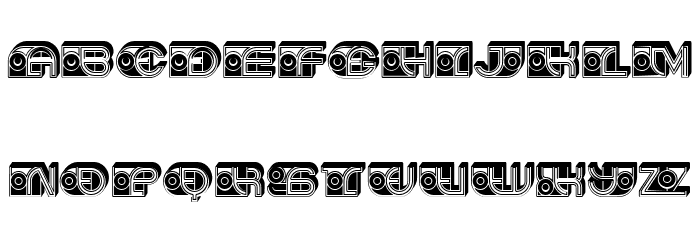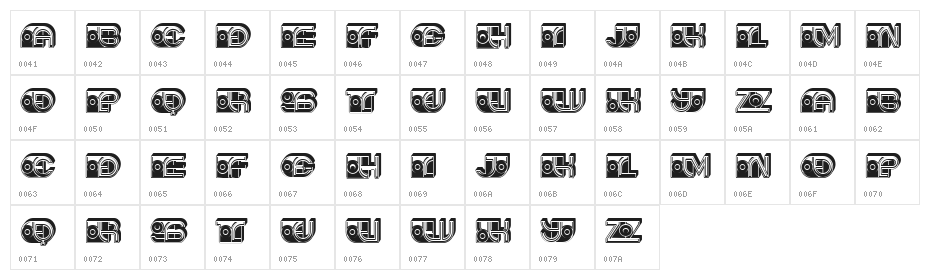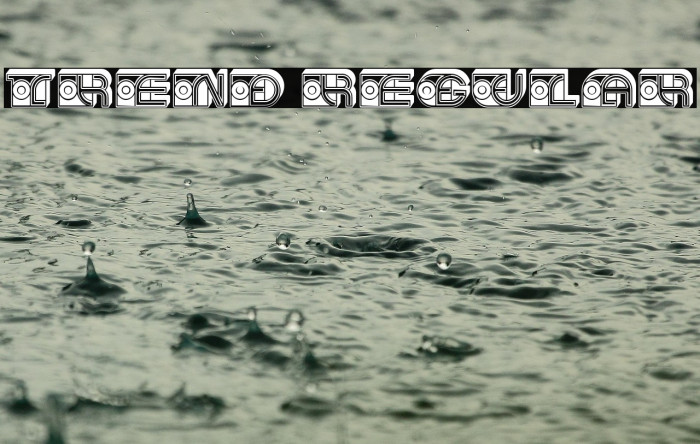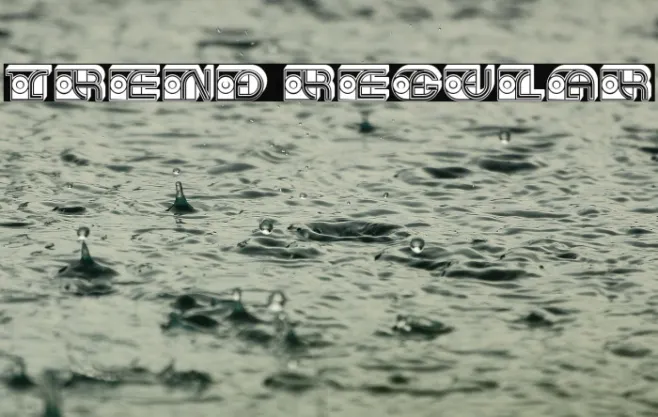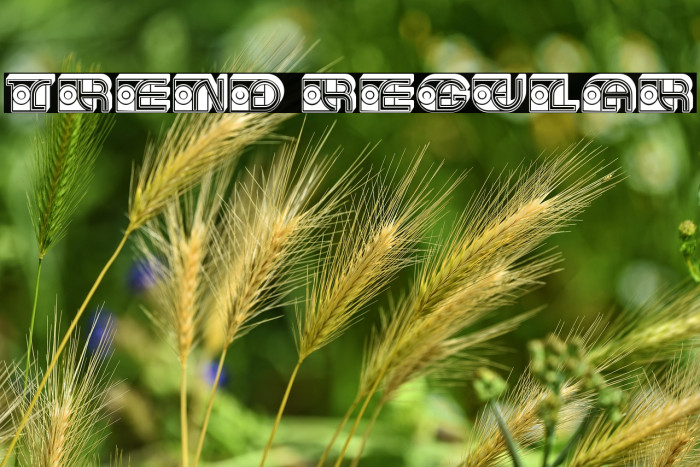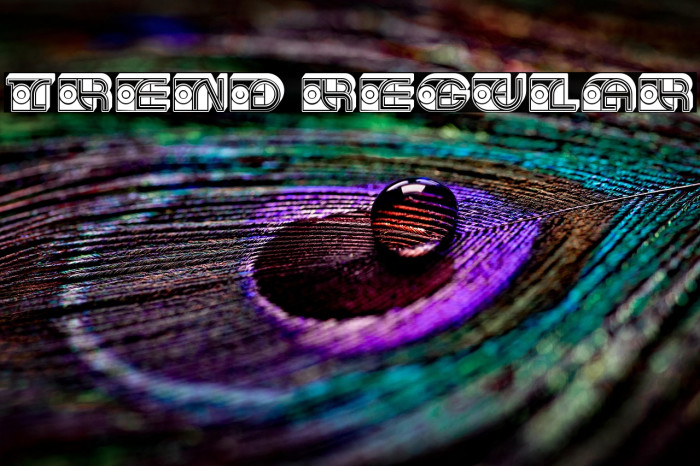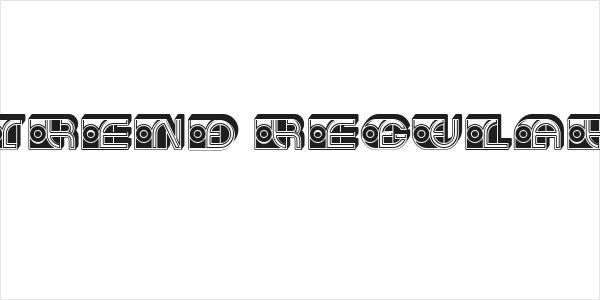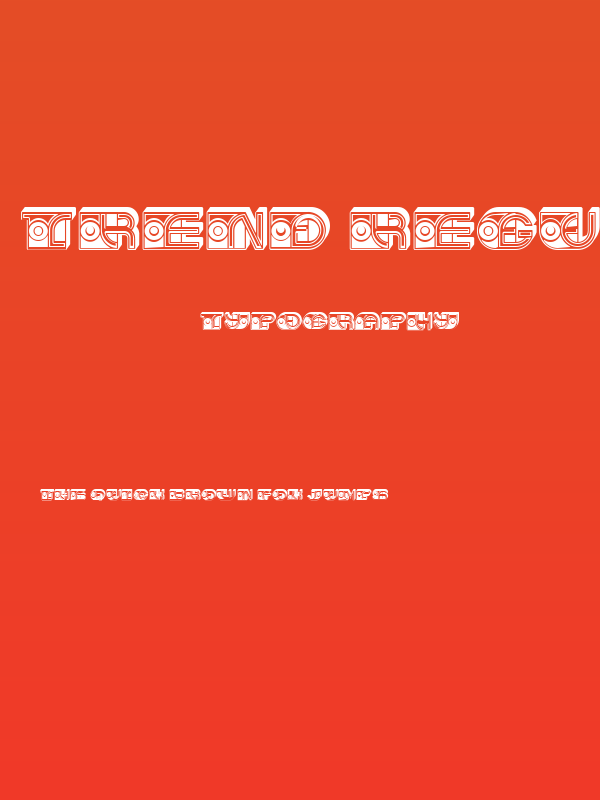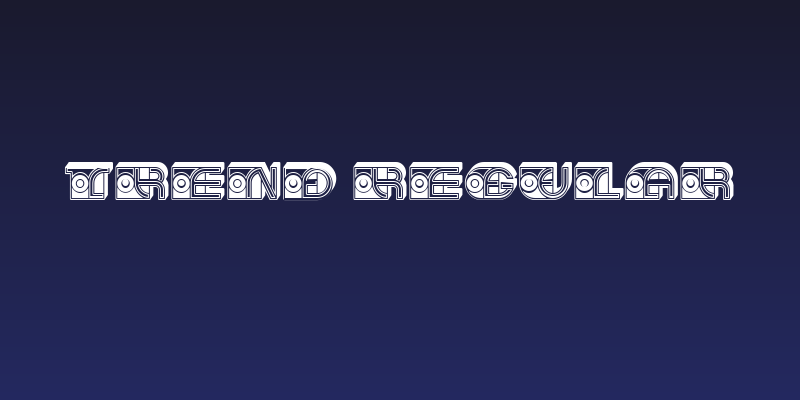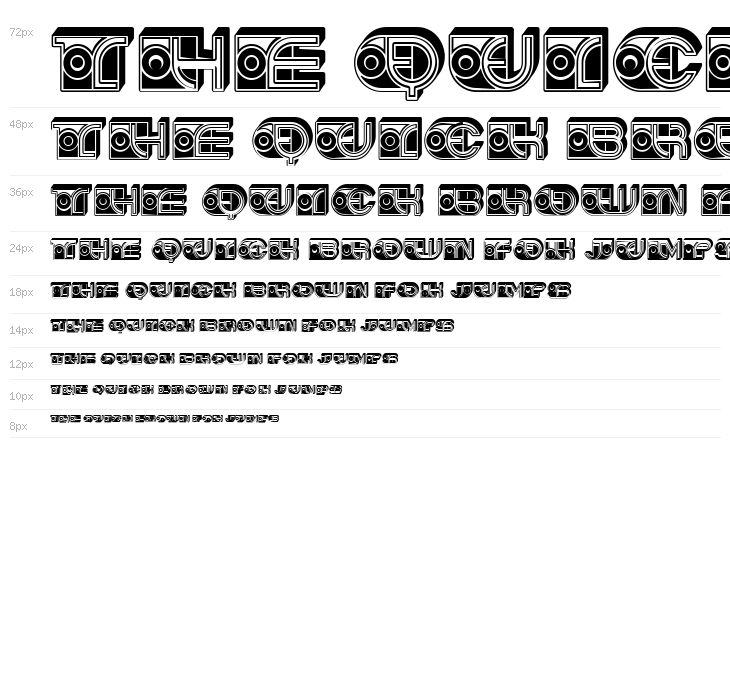
Trend Regular Font
Trend Regular Description
This font features a bold and decorative style with intricate geometric patterns embedded within each character. The letters are uppercase and exhibit a unique, artistic flair that combines modern design elements with a vintage touch. The characters are outlined with a double line, creating a layered effect that adds depth and complexity. The font's structure is consistent, with each letter maintaining a similar width and height, ensuring uniformity across the text. The design is highly stylized, making it suitable for creative and eye-catching displays.
| Overall Style | Modern, Vintage, Decorative |
| Proposed Projects | Ideal for branding, posters, album covers, and any project requiring a standout, artistic typeface. |